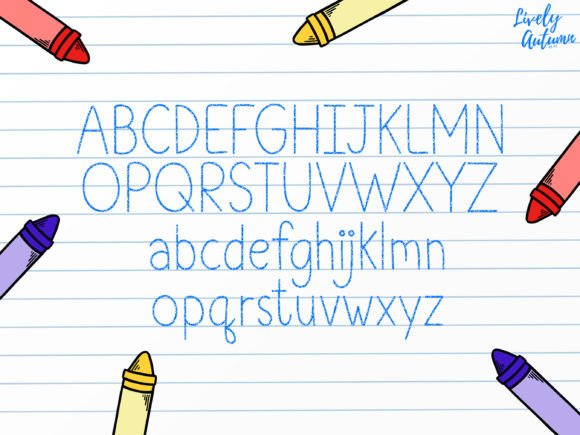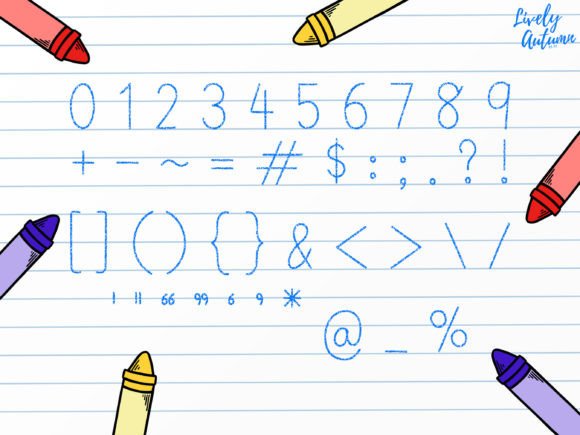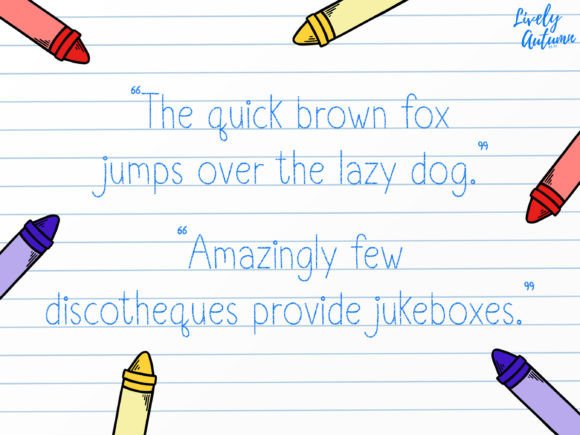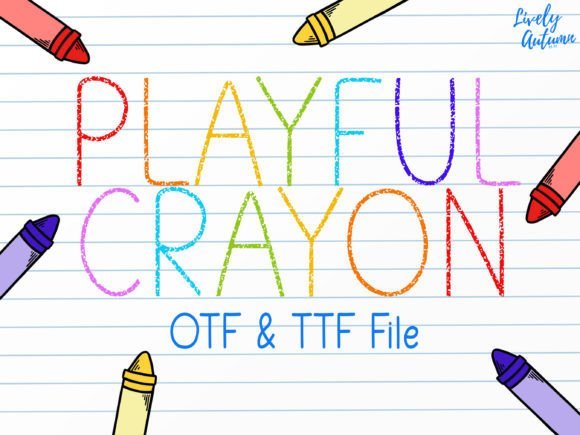
Introduction to Playful Crayon Font
Playful Crayon Font is a simple, san serif handwritten font that has a crayon texture in it.
Perfect for your art theme project, kids’ theme project, personal projects, and various projects From invitations to posters, social media graphics, journals, and much more.
Key Features of Playful Crayon Font
Why Choose Playful Crayon Font?
Playful Crayon Font offers exceptional quality and versatility, making it a valuable addition to your design toolkit. Whether you’re creating for personal projects or commercial use, Playful Crayon Font delivers professional results.